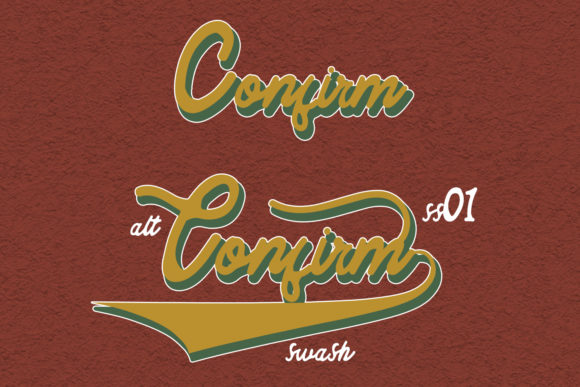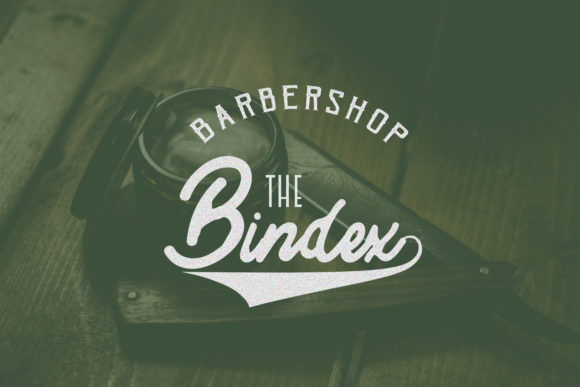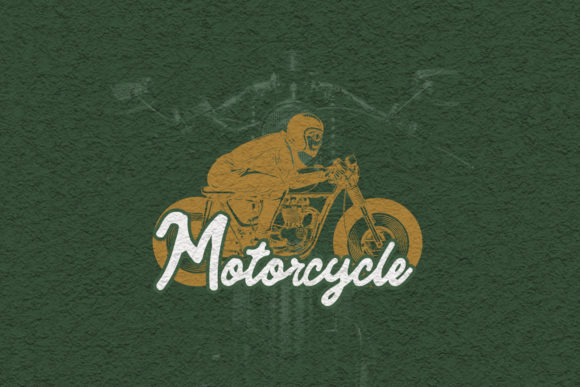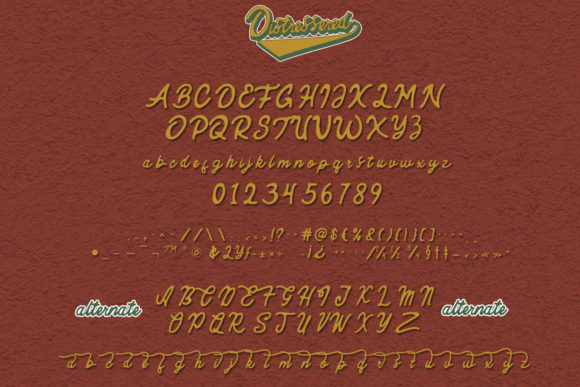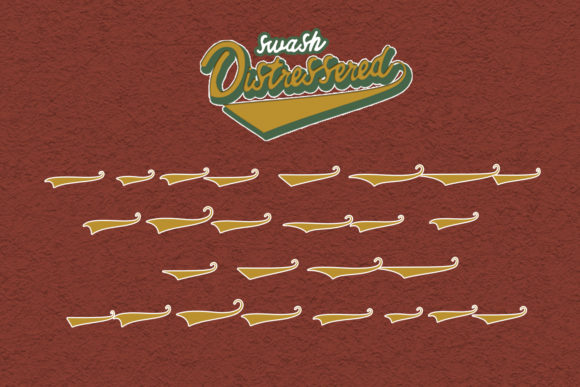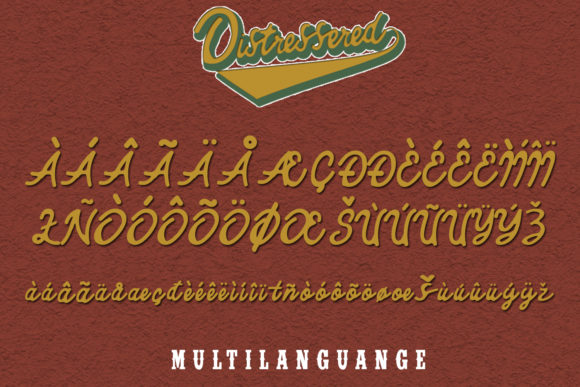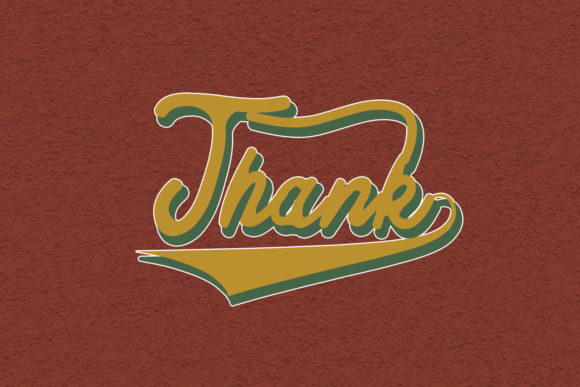
HomeScript FontsDistressered Font Script Fonts Distressered Font FacebookXPinterestWhatsApp Distressered Font Poster 2 Distressered Font Poster 3 Distressered Font Poster 4 Distressered Font Poster 5 Distressered Font Poster 6 Distressered Font Poster 7 Distressered Font Poster 8 About Distressered Font Distressered is a fun and cool vintage handwritten font. Use it for any project that requires a retro vibe. DOWNLOAD ON CREATIVE FABRICAThis font is sold and delivered by Creative Fabrica. Font Canyon may earn a commission if you buy through this link. People also explored Sheryll Font Dead Block Maraschino Font Wellove Font Merry Cost Font Gratte Passie Font Boomshell Font School Doodle Font Saturday Dating Font 323 0 TagsDistressered Font Previous articleFriday Vibes FontNext articleButchery Font LEAVE A REPLY Cancel reply Comment: Please enter your comment! Name:* Please enter your name here Email:* You have entered an incorrect email address! Please enter your email address here Website: Save my name, email, and website in this browser for the next time I comment. Personal Use Free Wallabys Junior Personal Use Free Read more about this font Built Tilting Personal Use Free Read more about this font Engine Personal Use Free Read more about this font Monogram Veg Personal Use Free Read more about this font BLOG Modern Sans-Serif Fonts That Brands Love in 2025 In 2025, modern sans-serif fonts remain a top choice for brands looking to project clarity, professionalism, and... Best Fonts for T-Shirt Design – Top 2025 Picks To increase your work productivity, choose the most readable fonts. How to Cut Any Font on Cricut: Convert a Font to SVG (Free)